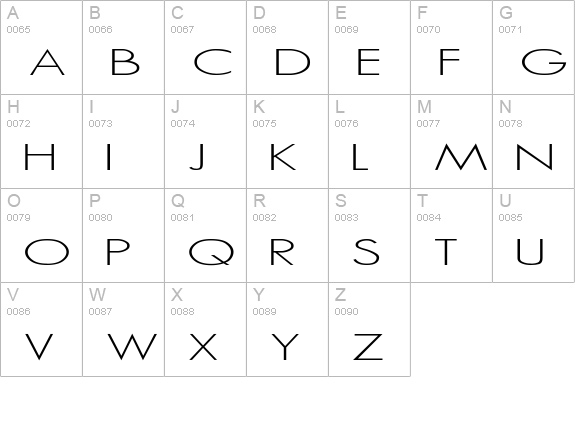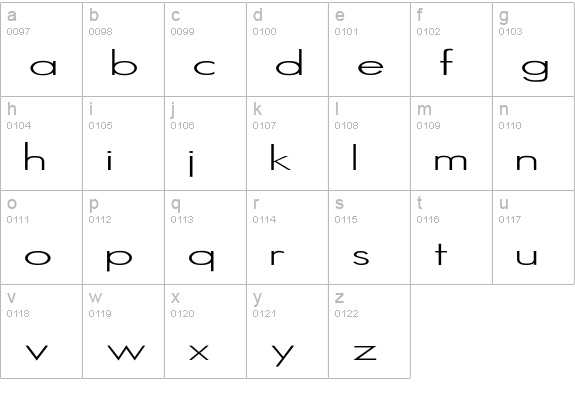
MicroSerif-Light Font Details
MicroSerif-Light is a refined, elegant variant in the MicroSerif typeface family \xE2\x80\x94 well suited to elegant body text, refined sub-headings, and luxury branding.
MicroSerif-Light is a sophisticated and elegant font that brings a touch of finesse to any design project. Its delicate serifs and subtle curves exude a sense of refinement and class, making it perfect for both digital and print applications. This versatile typeface strikes the perfect balance between traditional serif fonts and modern design trends, making it ideal for a wide range of projects. What's even better is that MicroSerif-Light is available for free download at FontsMarket.com! Whether you're working on a professional presentation, a creative branding project, or simply looking to elevate your personal designs, this font is sure to add a touch of sophistication and style. Don't miss out on this opportunity to enhance your work with the timeless charm of MicroSerif-Light. Download it today and start creating with elegance and flair!